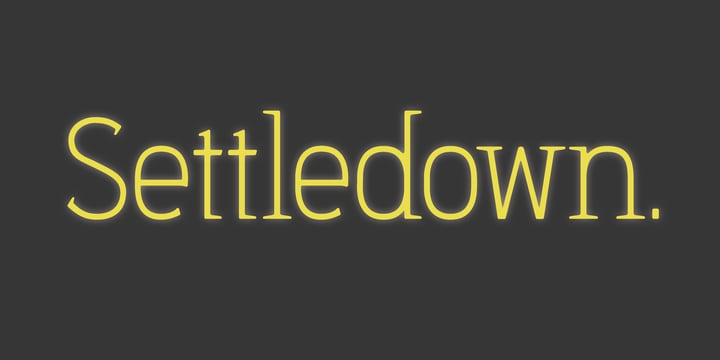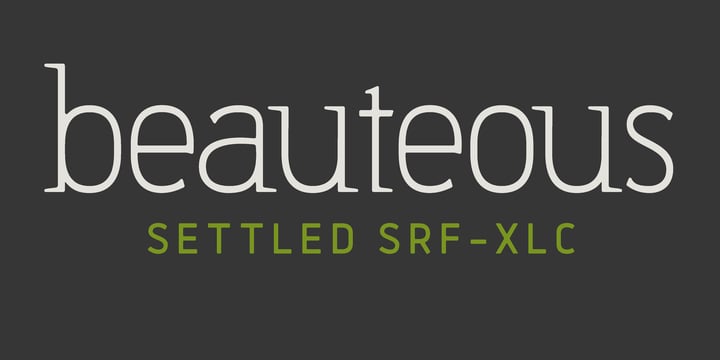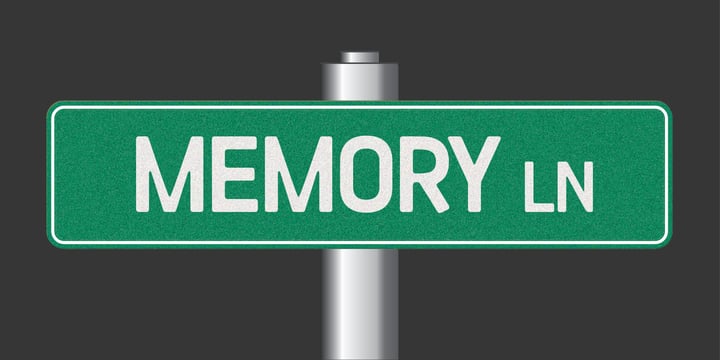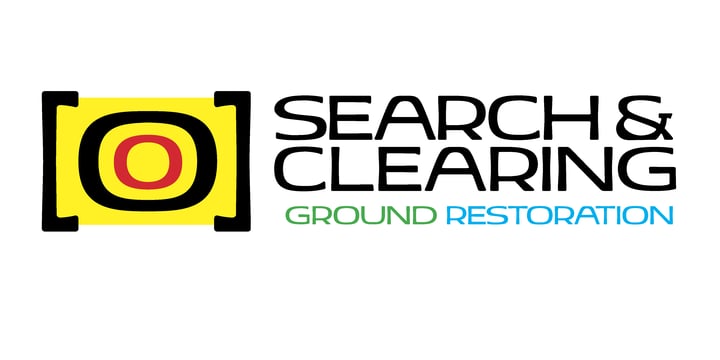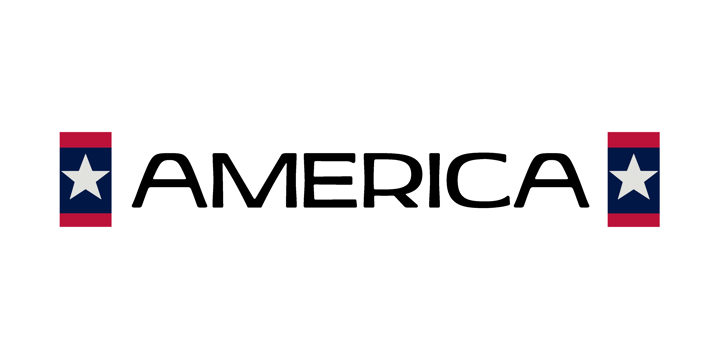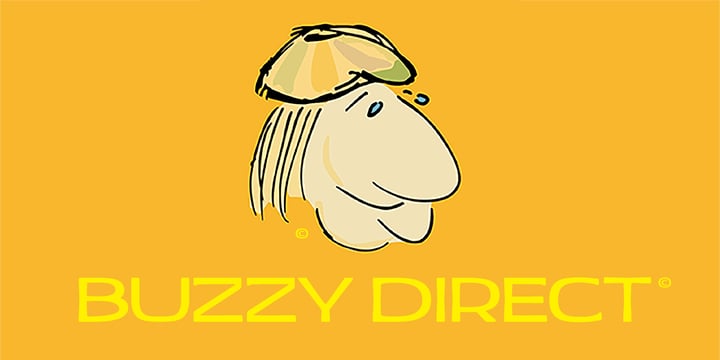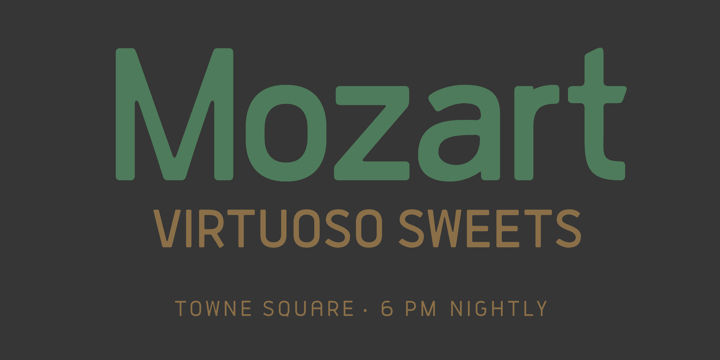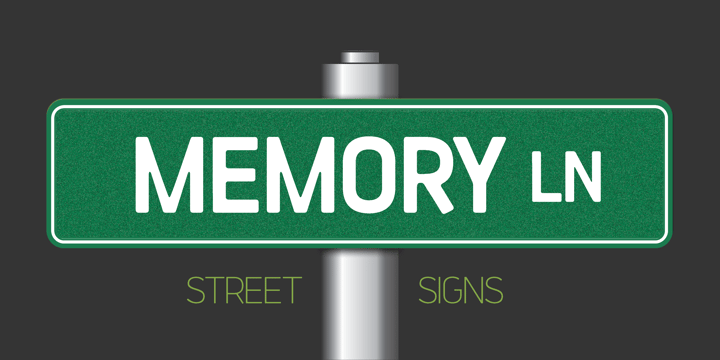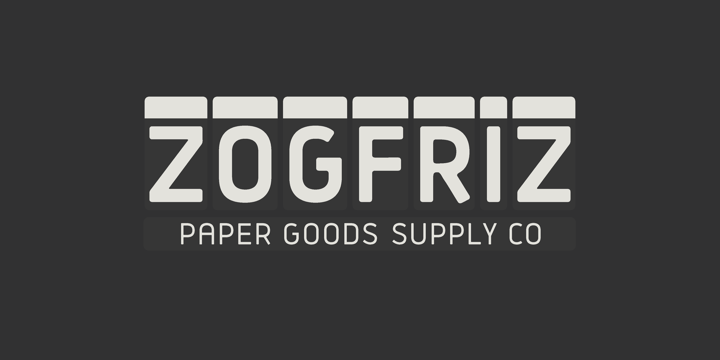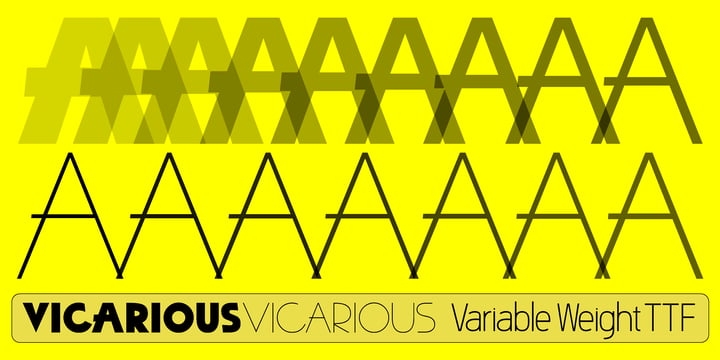
Training began at the Graphic Arts Preparation Workshop in Manhattan, NYC, under the tutelage of Newton Meyers.
First employment took place at The Cittone Institute (later Lincoln Technical Institute) as the sole designer for the in-house graphics department covering campuses located in several states. Then, starting a freelance home-based graphic design business, and inspired by the love of letterforms, focus gravitated from print and web design to font creation using Fontlab software.
Display fonts are the favored form, so useful for signage (business, building, billboard, etc), A-frames, news and advertising headlines, brochures, book jackets, menus, and the like.
Graphic design has been a gift to me, to pay my way, and to enjoy working. At first using photography in conjunction with vector drawing, letterforms soon became the source of great pleasure as well as painstaking work. For me, letterforms add both beauty and function to life.
Letterforms drew my eyes and then, I thought to draw them with my pen.